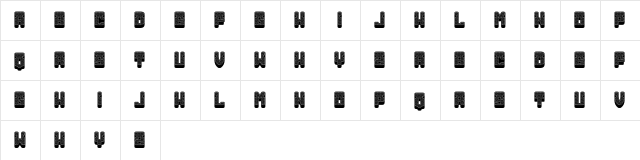
Creator Regular
Design Context for Creator Typeface
Creator is a composed and adaptable typeface that performs quietly and consistently across a wide range of design contexts.